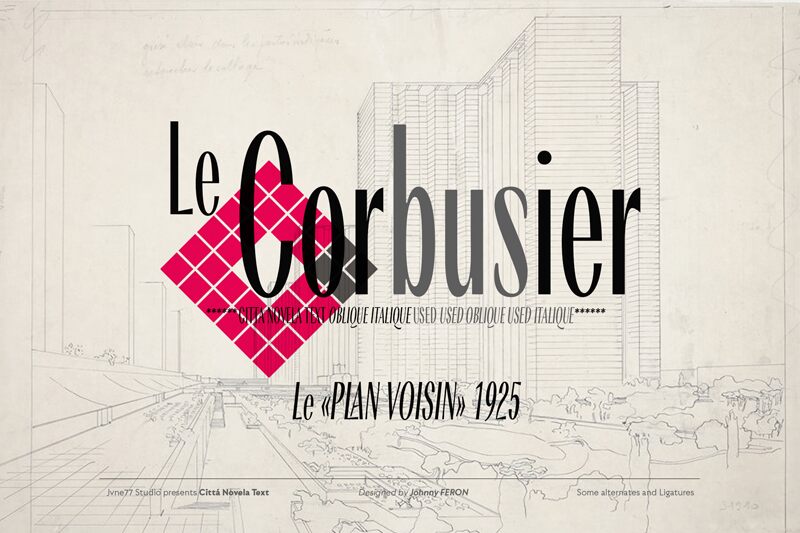
Citta Novela Display Obl Outline is a stunning sans-serif typeface designed by Jvne77 Studio. Its semi-light weight and extra-condensed width make it perfect for projects that demand an elegant and refined look. This font type is ideal for designing headlines, posters, logos, and banners that require a modern twist on classic typography. With its clean lines and sleek curves, Citta Novela Display Obl Outline exudes sophistication and professionalism. Whether you're creating a brand identity for a luxury fashion brand or designing an eye-catching magazine cover, this font type will elevate your design to the next level.
Multilingual, diacritics, ligatures and alternates for near 570 glyphes.